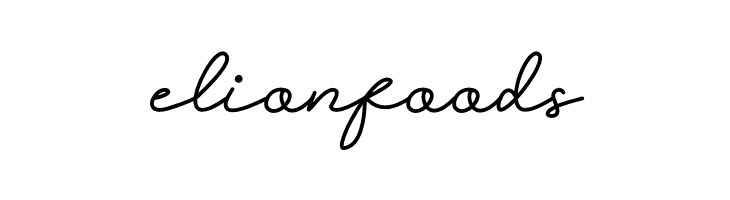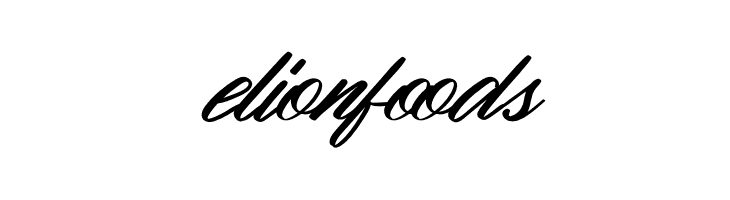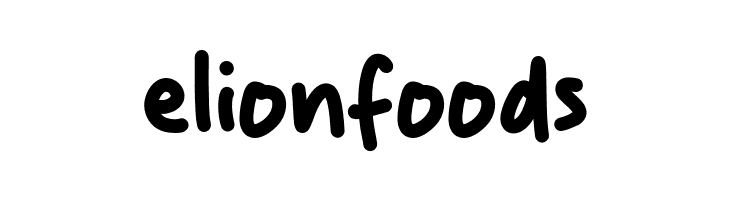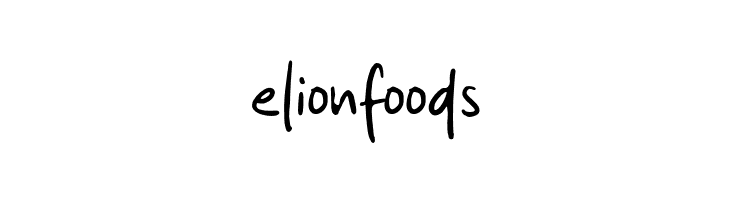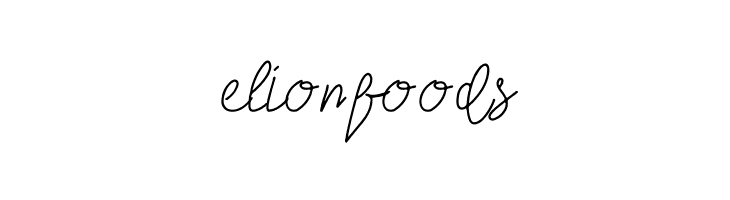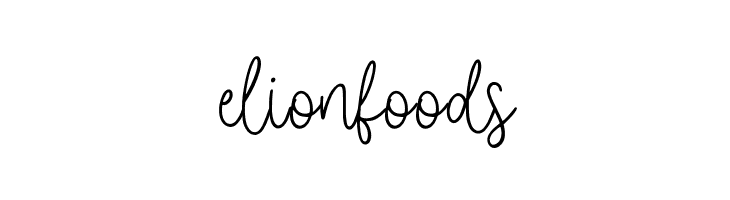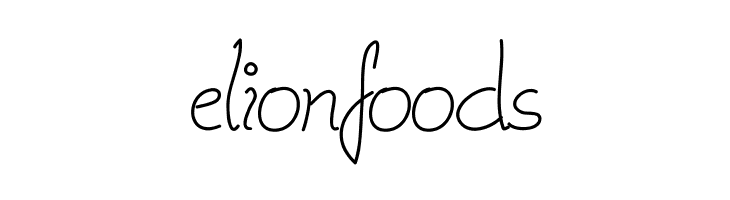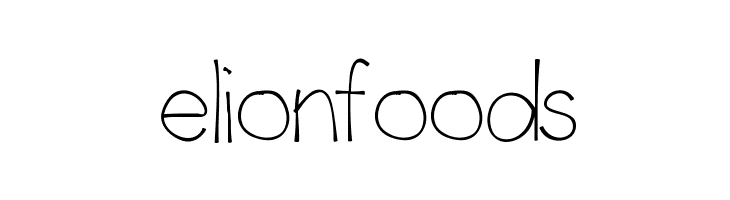
A playful, handwritten font with a light and airy feel.
A sophisticated and elegant handwritten script with fluid, graceful letterforms.
A graceful script font with fluid, connected strokes and elegant flourishes.
Delicate, casual handwritten script with smooth, flowing strokes.
A playful, casual handwritten font with smooth, flowing lines and a friendly vibe.
A casual, handwritten font with a natural, flowing style.
An elegant script font with flowing lines and high contrast, perfect for sophisticated designs.
Casual handwritten font with a playful style.
A dynamic, expressive handwritten font with fluid strokes and a lively character.
A dynamic and elegant script font with fluid, cursive strokes.
A dynamic, cursive script font with elegant, flowing letterforms.
A playful, whimsical handwritten font with flowing, cursive-like strokes.
A playful, bold handwritten font with rounded letterforms and a casual style.
Casual, artistic handwritten font.
A playful, handwritten font with a casual and organic feel.
Bold cursive script with a playful style.
Casual handwritten script font.
A playful, hand-drawn font with tall, narrow letters and a whimsical style.
A playful, thin, and whimsical font with a hand-drawn feel.
A textured, brush-like script font with a dynamic and expressive style.
A dynamic, handwritten script font with fluid, connected letters and varying stroke thickness.
A playful, handwritten font with irregular strokes and a casual style.
A playful, handwritten script font with smooth, flowing characters.
Playful, rounded handwritten font.